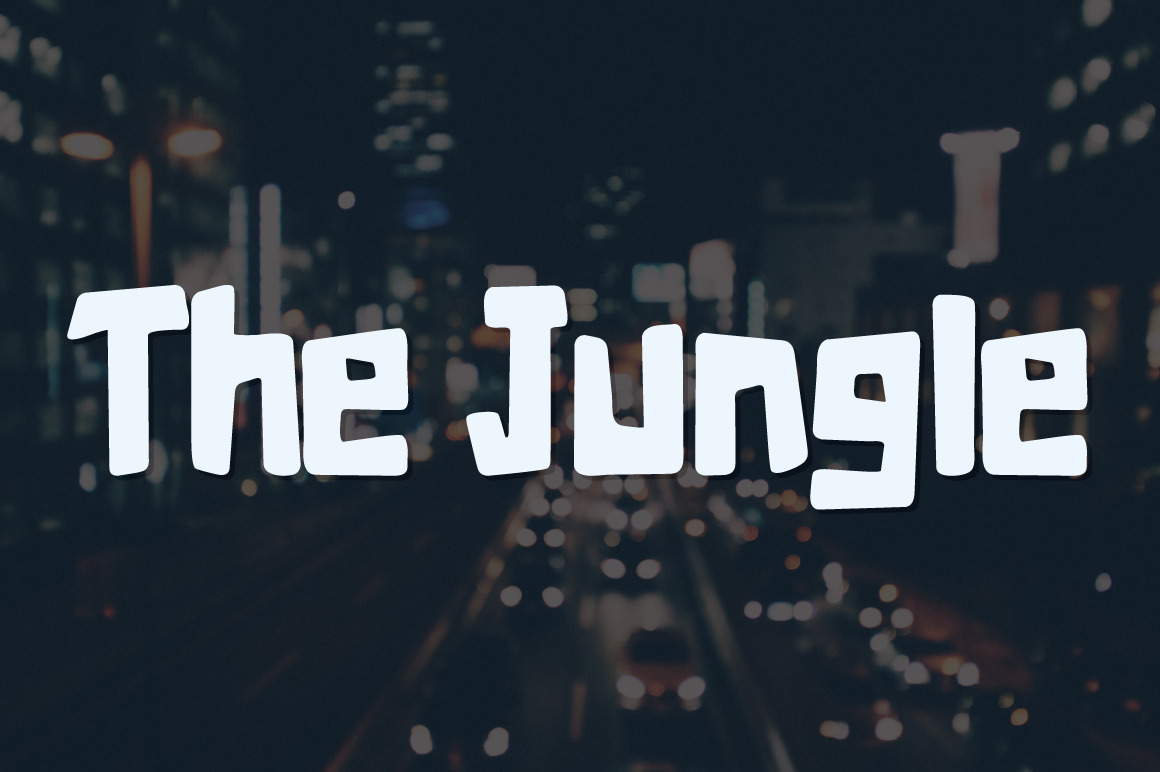
The Jungle typeface
The Jungle Typeface
The Jungle font is simple, fun and strong hand crafted font inspired by children books and street hand drawn typography.
Characters included: Upper and Lowercase glyphs Numerals Punctuation Alternates for creating a hand feel International glyphs